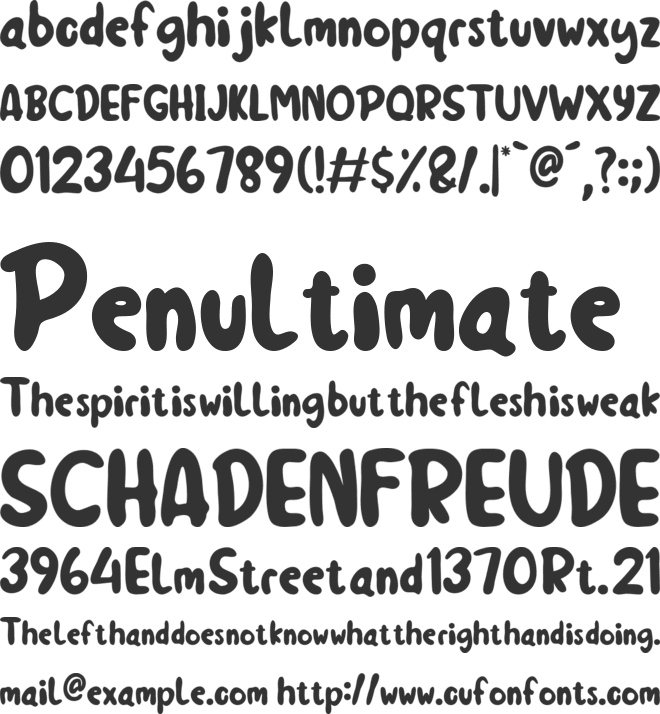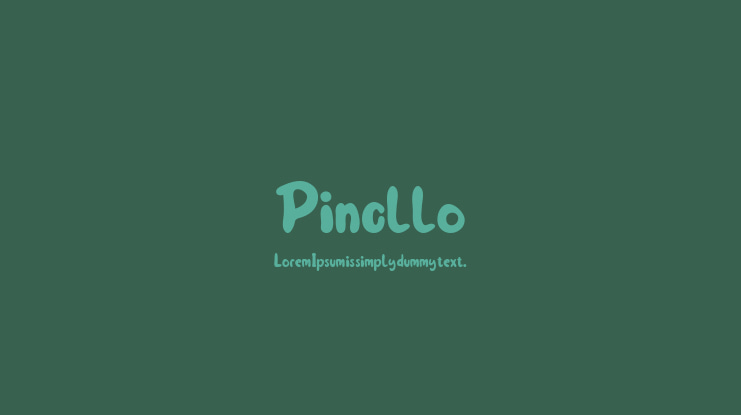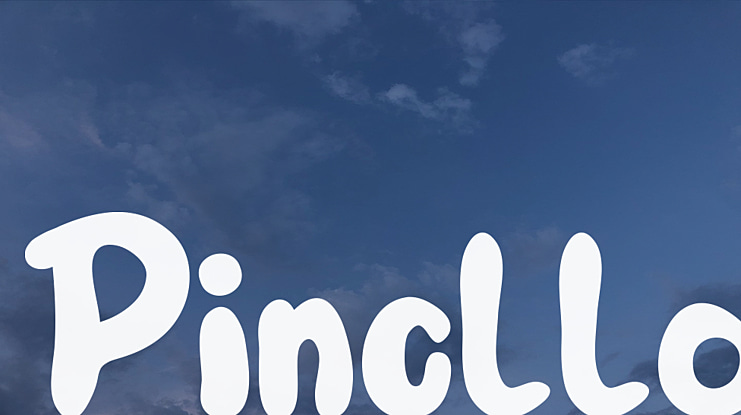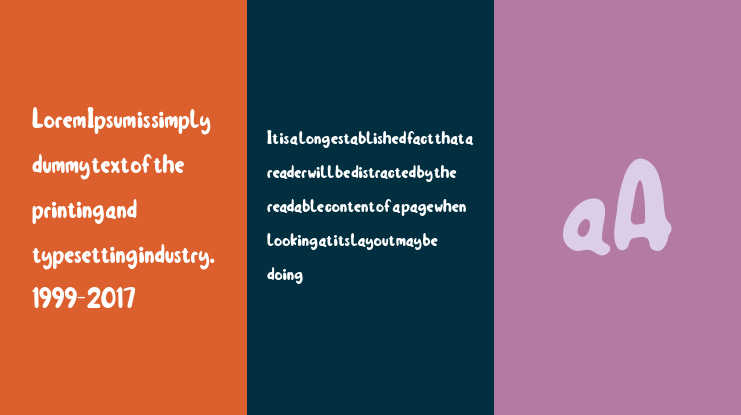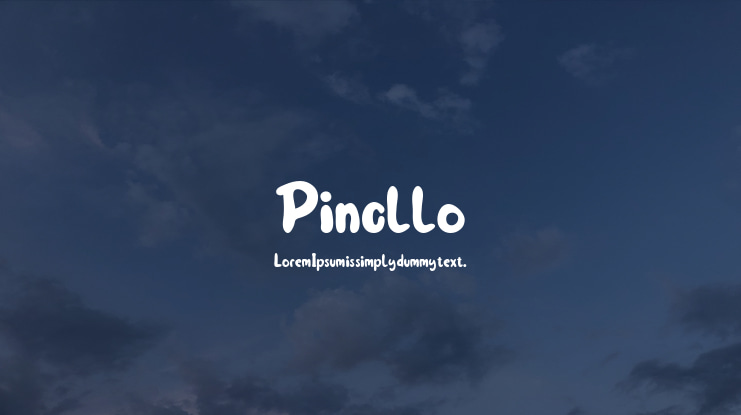
Pincllo is a cute and flexible display font. Whimsical and a bit quirky, this font will brighten up each of your designs. Add it confidently to your projects, and you will love the results.